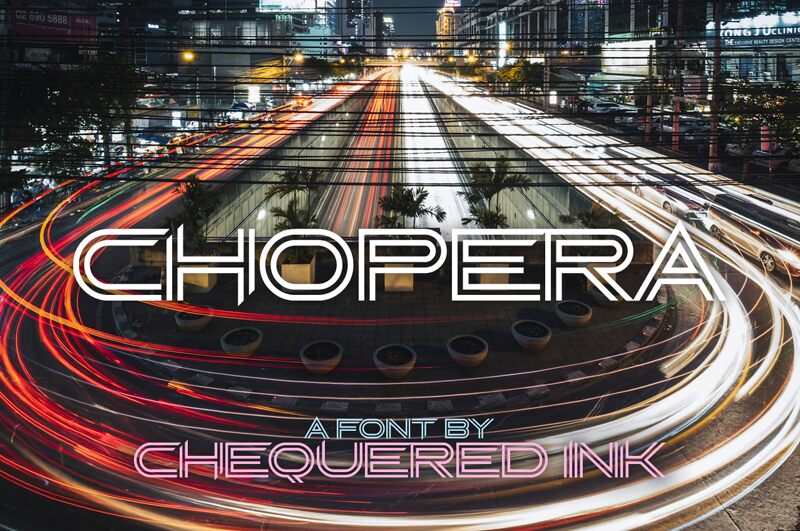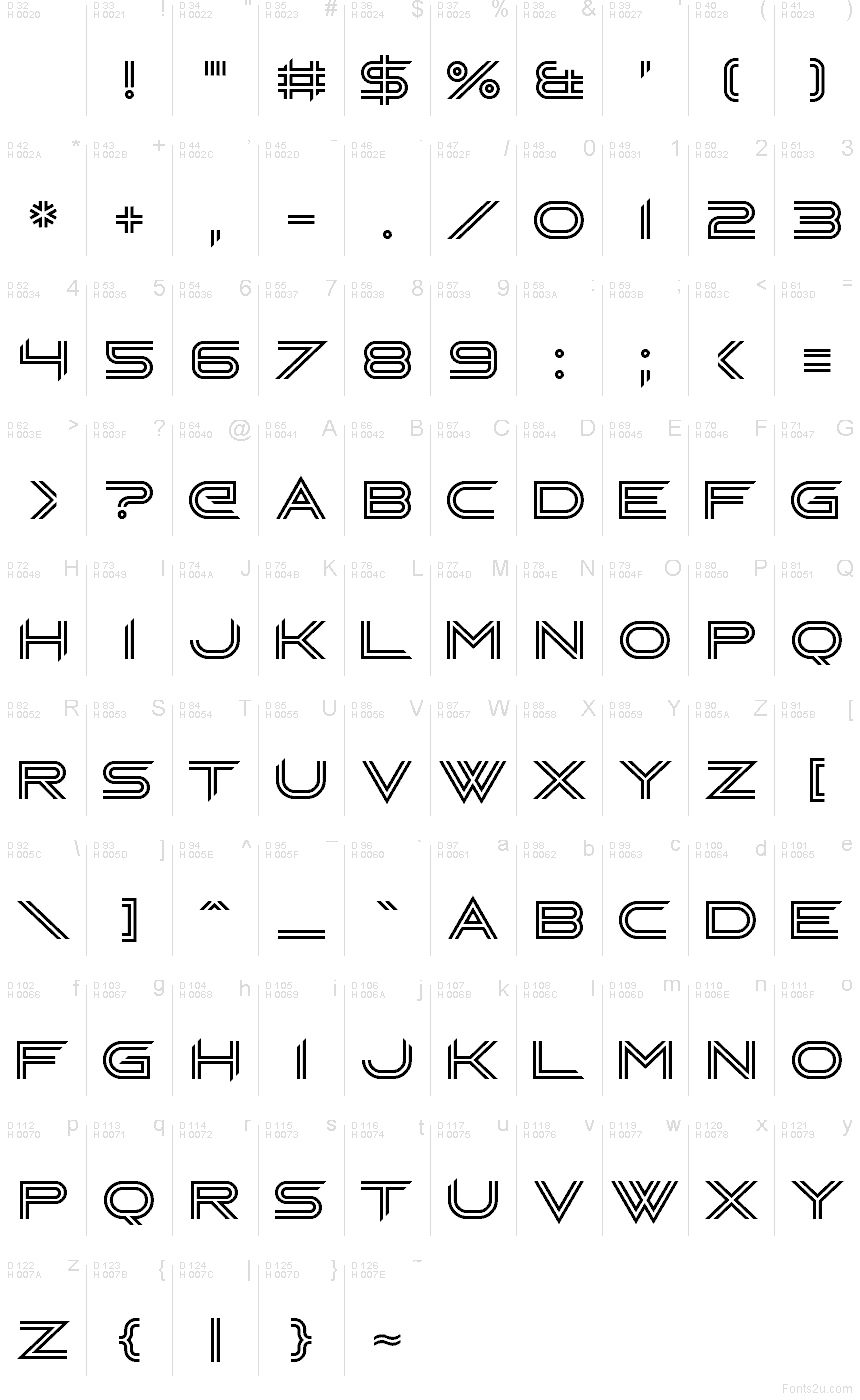
Chopera, a free futuristic display font from Chequered Ink, leans into sleek sci-fi signage with rounded geometry and fast horizontal striping. The letters feel streamlined and architectural at once, mixing soft corners with clipped edges and extended top strokes that give the caps a hovering, directional rhythm.
It fits naturally in poster titles, album covers, gaming graphics, tech branding, and title cards where a free font can carry a retro-future mood without getting fussy. Use it for short headlines and monograms too - the layered line treatment gives even a few letters enough motion to feel like a built mark.